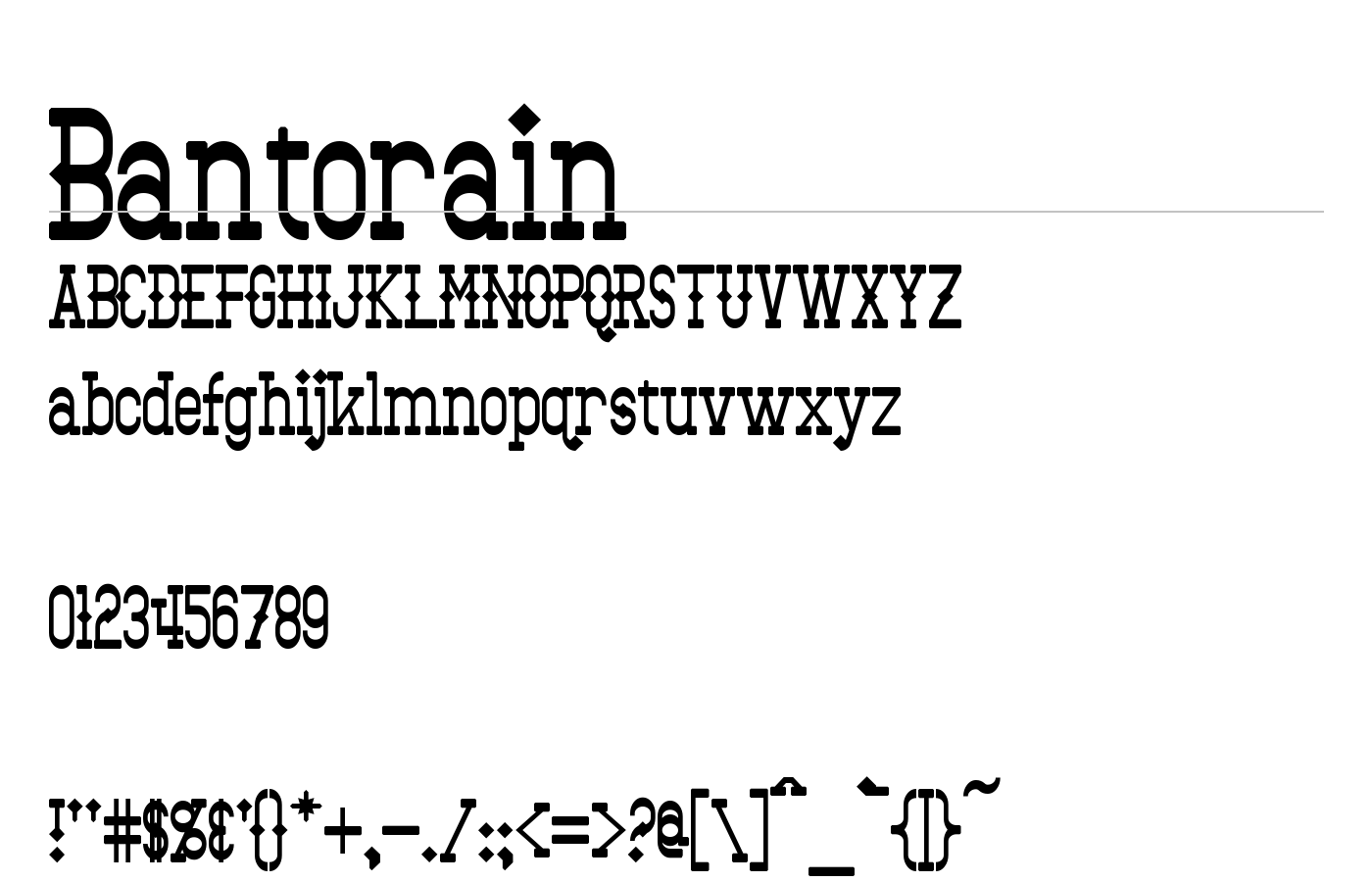
Bantorain is a distinctive slab serif typeface with bold, geometric letterforms and a sturdy structure that gives it a mechanical, almost Victorian-era industrial vibe. Its high contrast between thick and thin strokes, bracketed serifs, and unique decorative elements like diamond-shaped dots add a touch of vintage flair while maintaining readability for headlines and display use. This font suits branding, posters, or editorial designs looking for a strong, classic yet quirky personality with a blend of tradition and modernity.
Bantorain Font